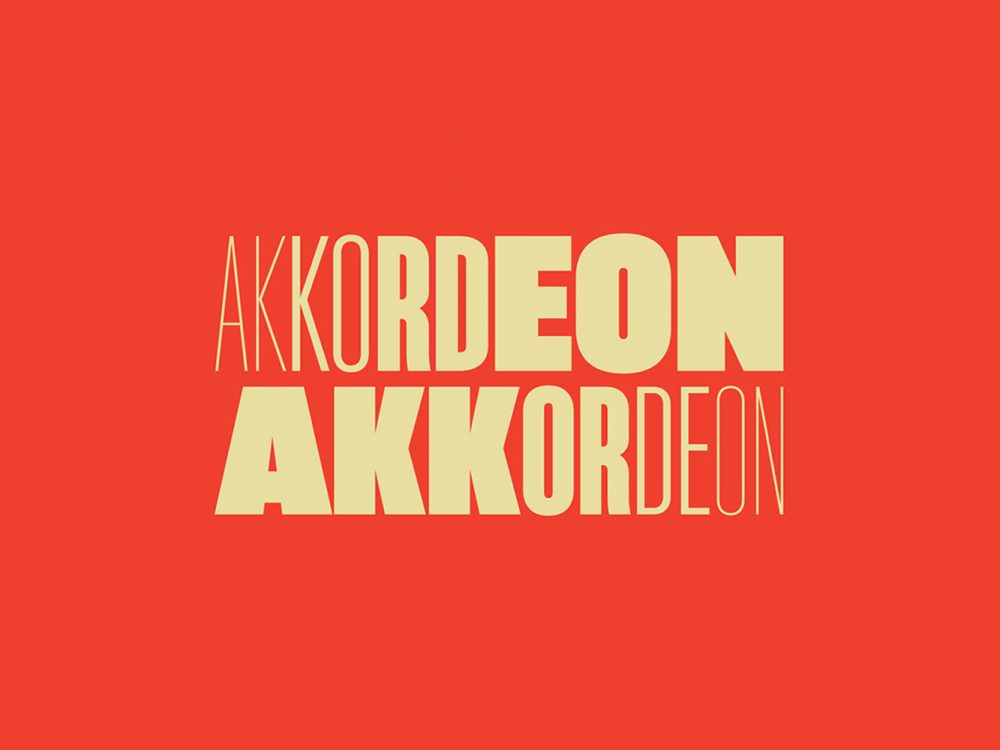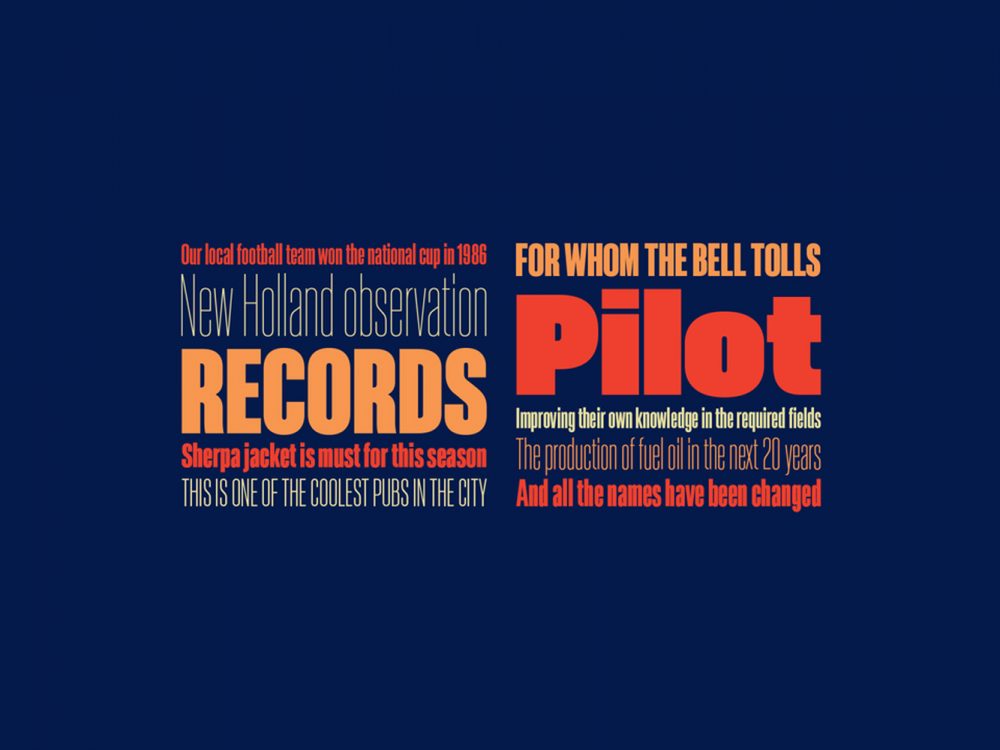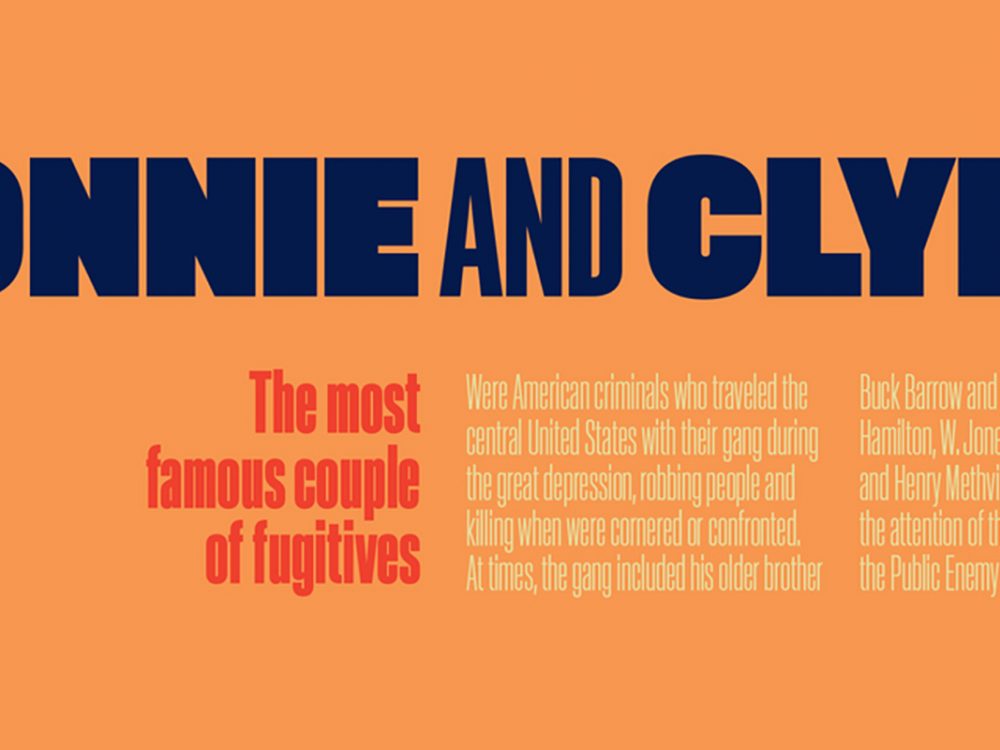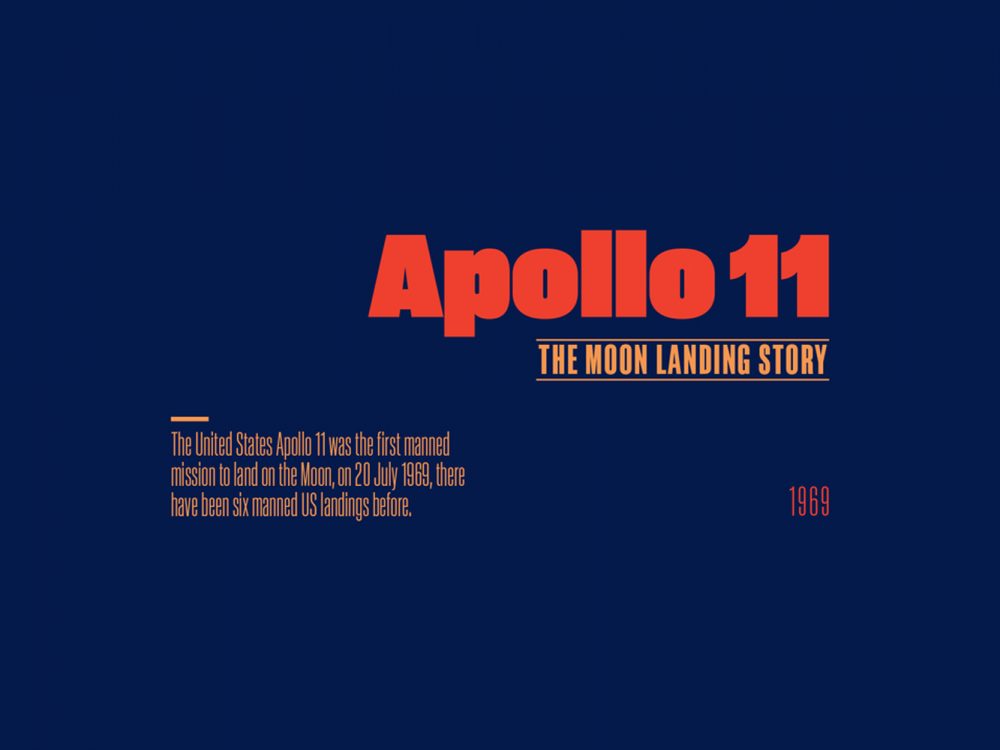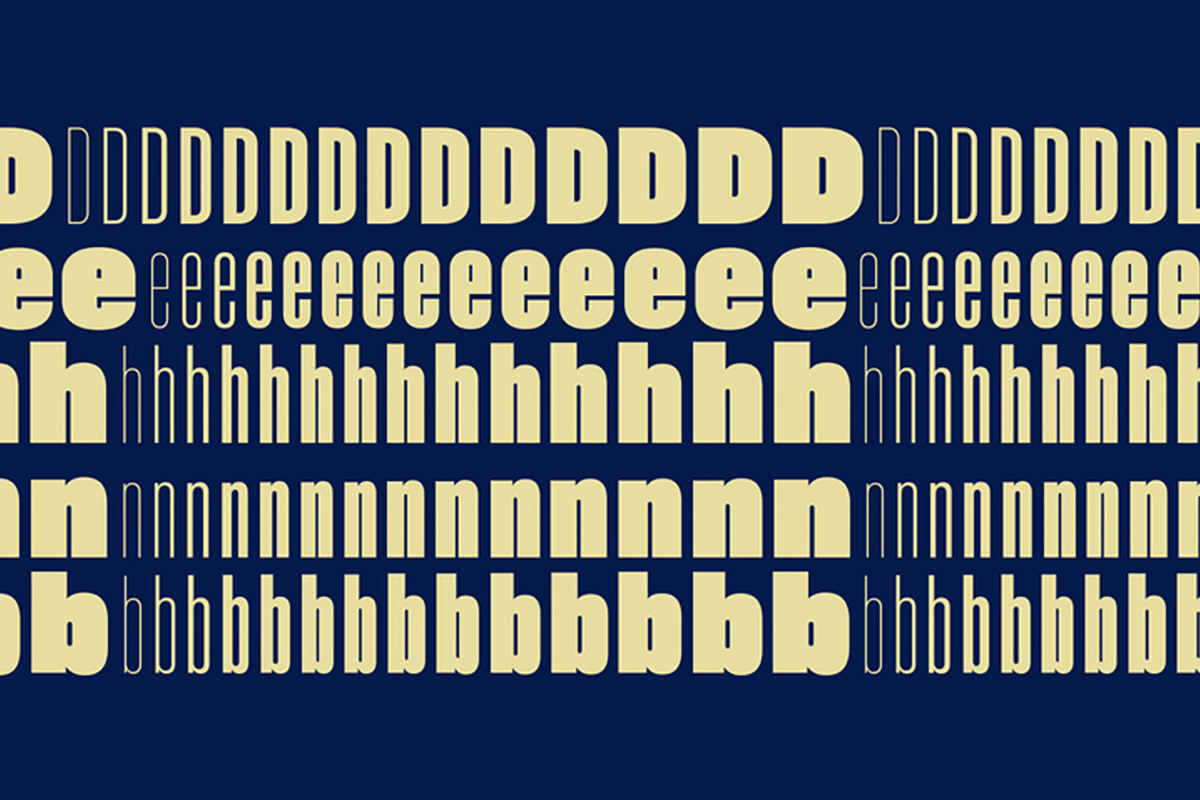
Akkordeon Font Family Demo
Akkordeon Font Family Demo is a sans-serif-inspired font family that offers a wide range of font sizes. This font works very well for a variety of design projects such as posters, magazine covers, book covers, branding, flyers, prints, and more. If you want to use it for commercial work please buy the full version.